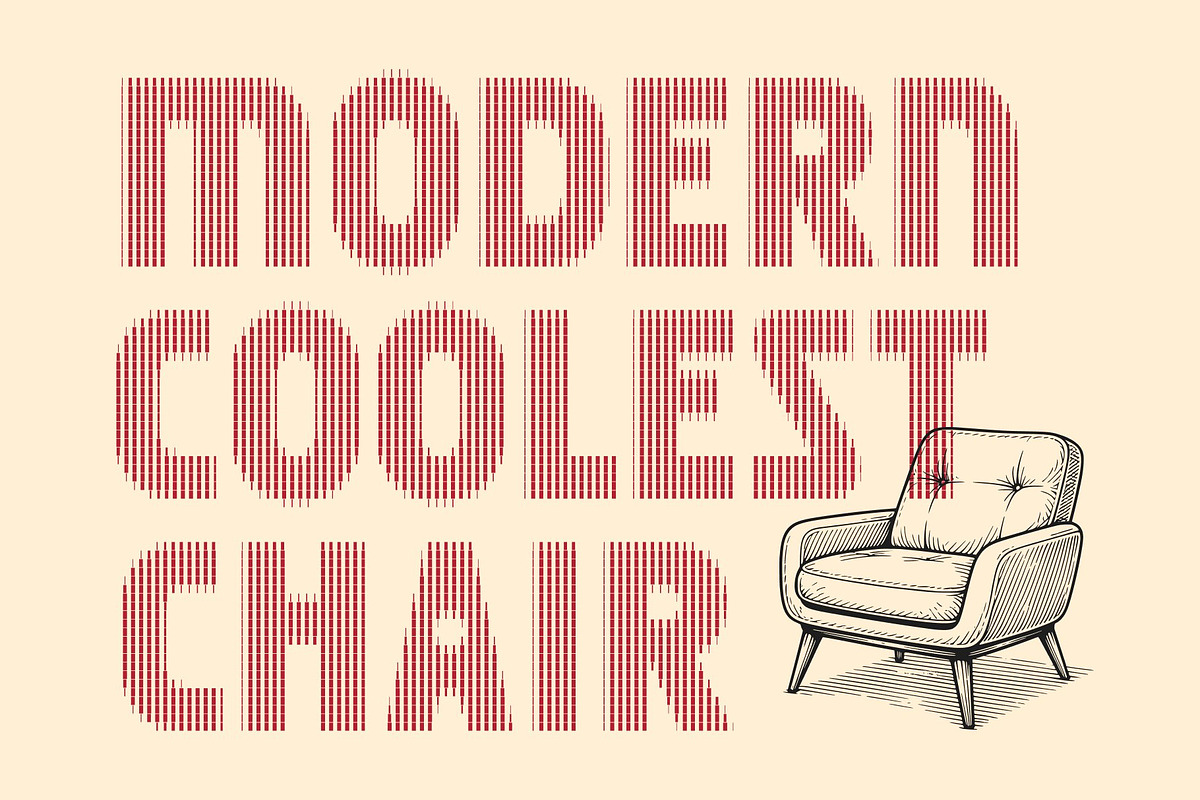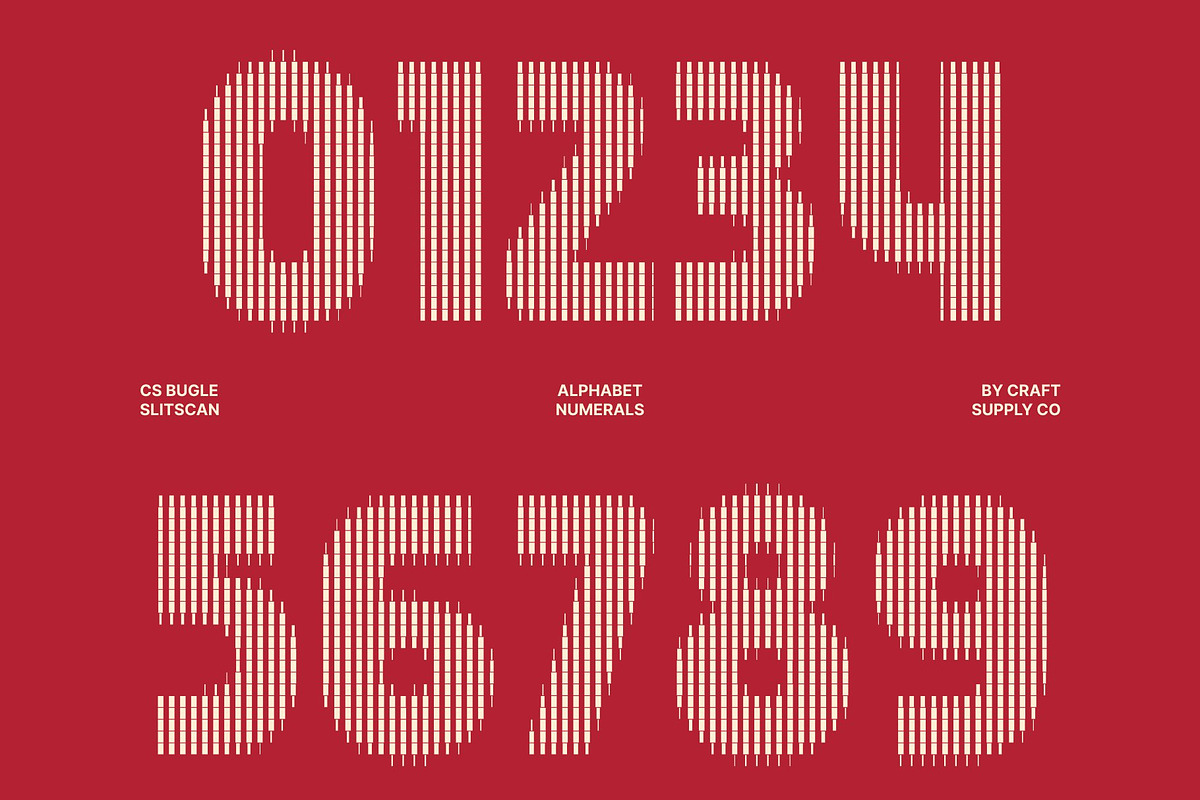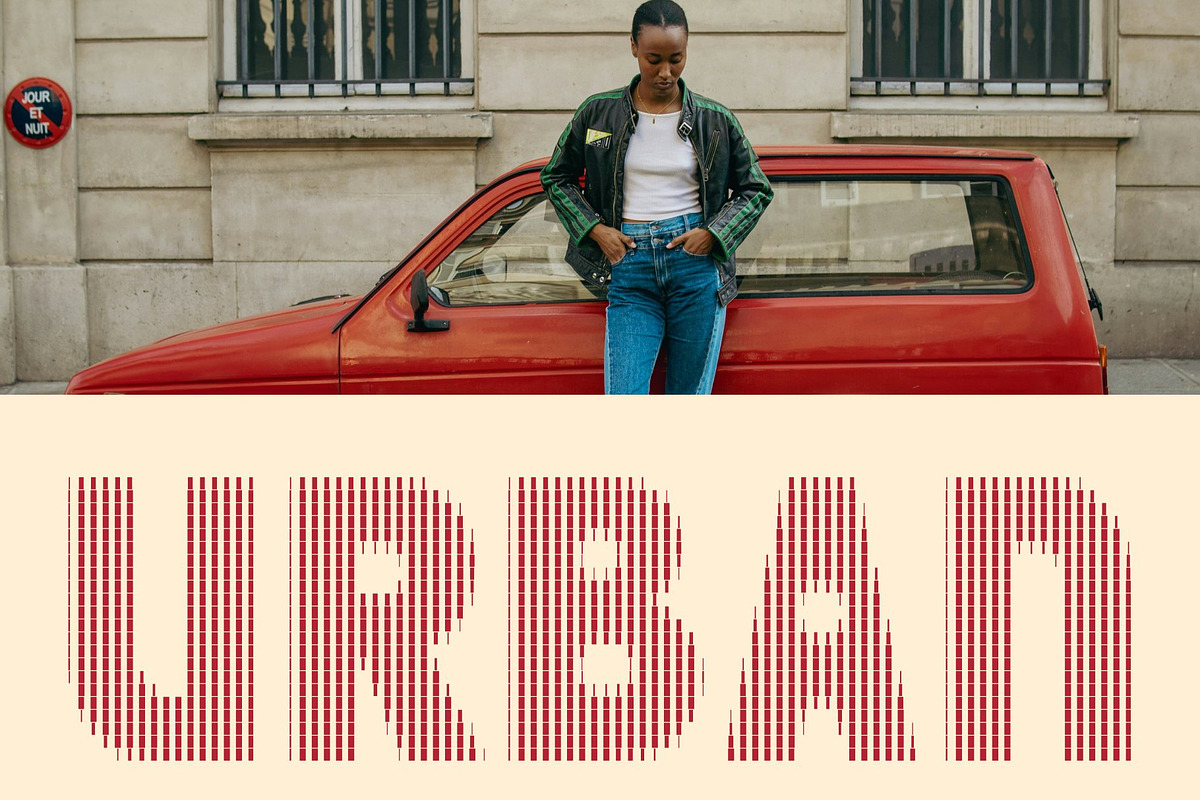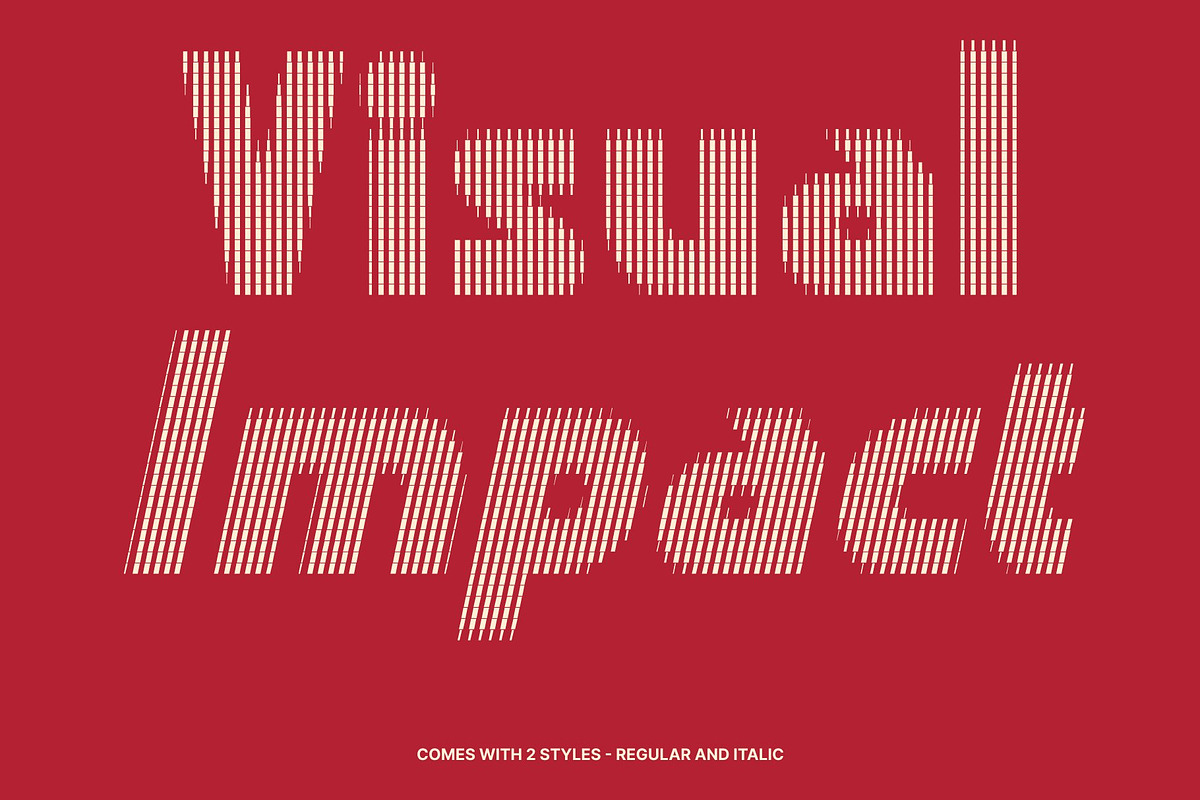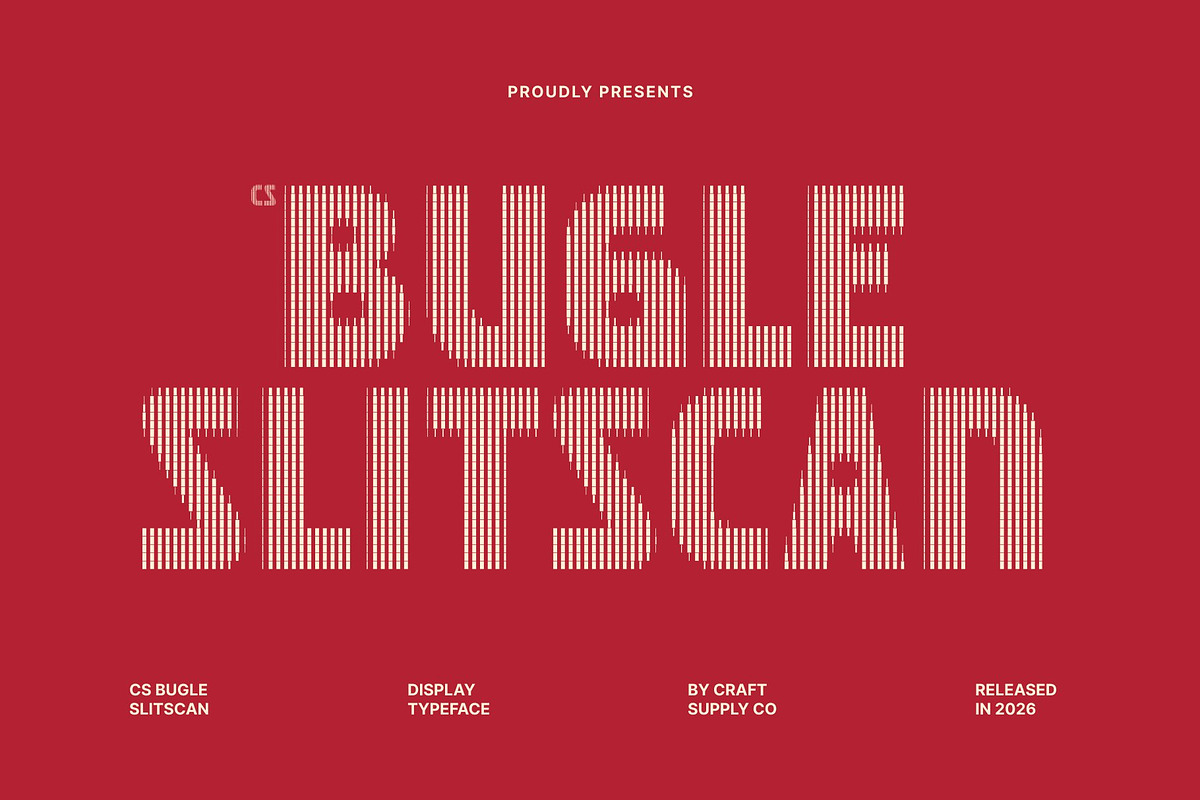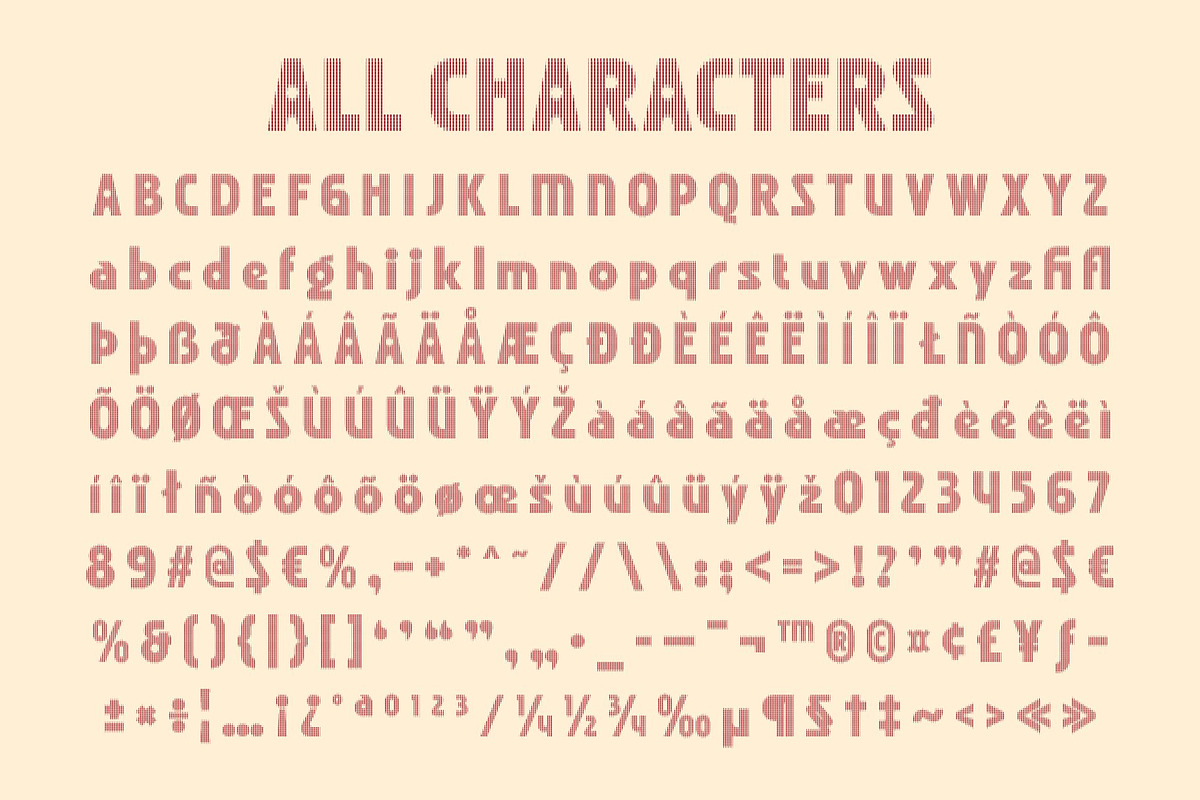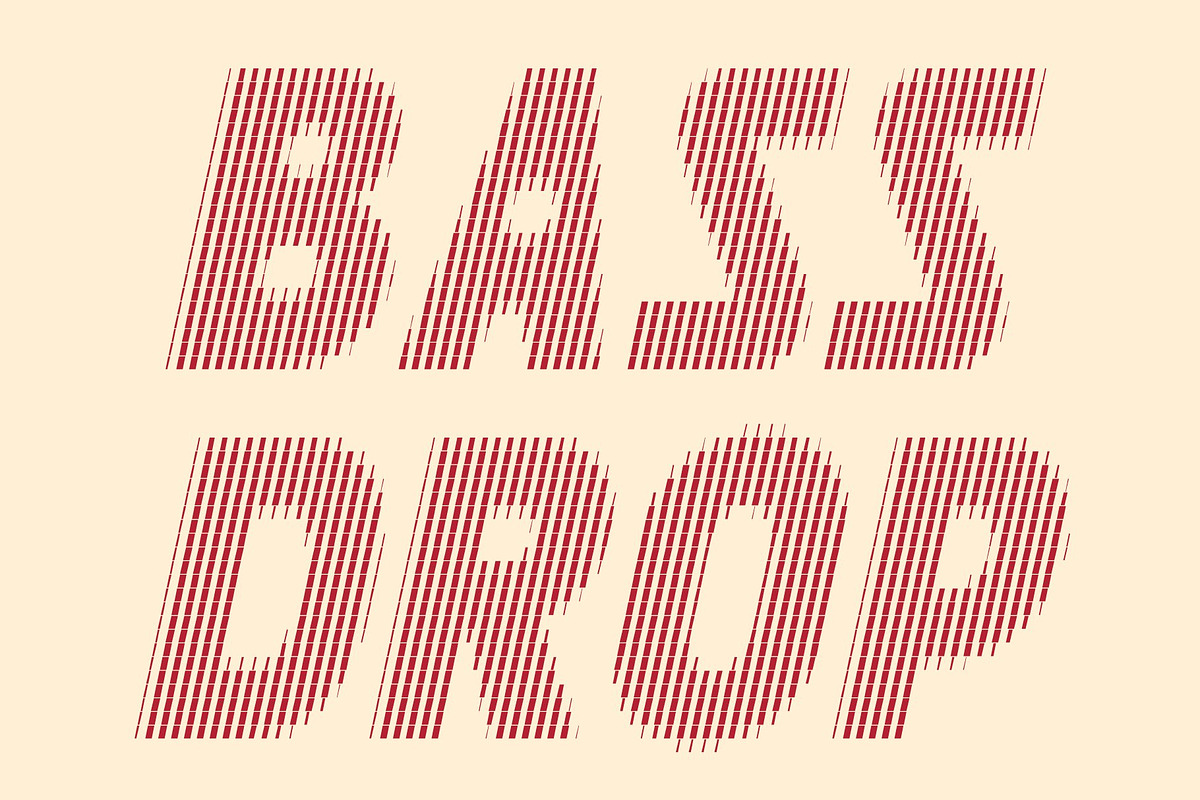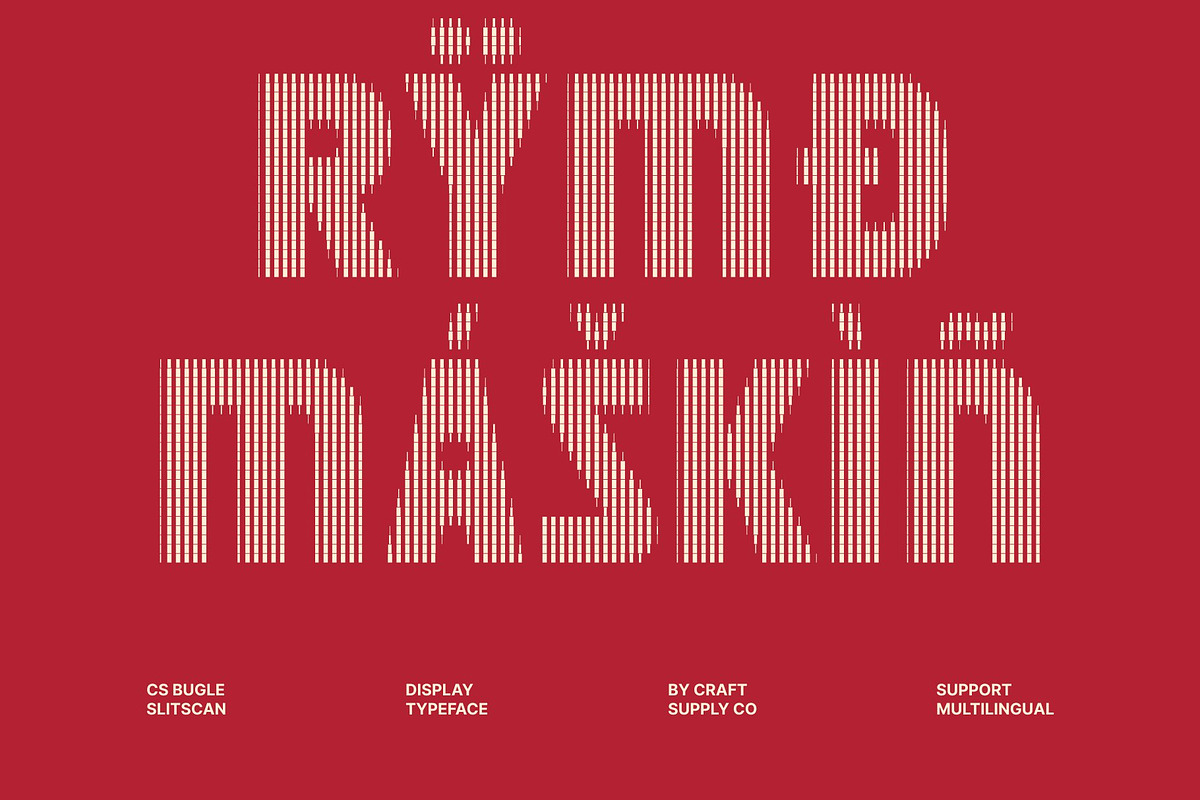
CS Bugle Slitscan
CS Bugle Slitscan – Retro Display Font: Nostalgic 80s Energy Meets Futuristic Motion
Classic 80s Aesthetics with a Modern Twist This is a bold retro display typeface inspired by the vibrant visual culture of the 1980s. Built with thick sans-serif letterforms and clean geometric construction, it captures the energetic spirit of vintage design while presenting it through a modern lens. The result is a nostalgic yet contemporary typeface that feels both familiar and fresh.
Retro Boldness with Slitscan Motion Effect Infused with a slit-scan inspired distortion, this typeface introduces vertical sliced layers that create a sense of motion, speed, and time-shift. The effect adds a futuristic twist to classic retro forms, producing a unique combination of 80s nostalgia and digital experimentation.
Energetic and Eye-Catching Presence The font’s heavy strokes and solid shapes ensure strong visibility in bold compositions. Its condensed density and clean structure allow headlines and titles to stand out with confidence, making it ideal for high-impact visual layouts.
Perfect for Retro-Futuristic Projects This is ideal for vintage posters, retro branding, album covers, event promotions, logos, and packaging. It shines in synth wave visuals, arcade themes, music festivals, and any creative project seeking a bold 80s aesthetic with a futuristic glitch edge.
CS Bugle Slitscan Regular
CS Bugle Slitscan Italic